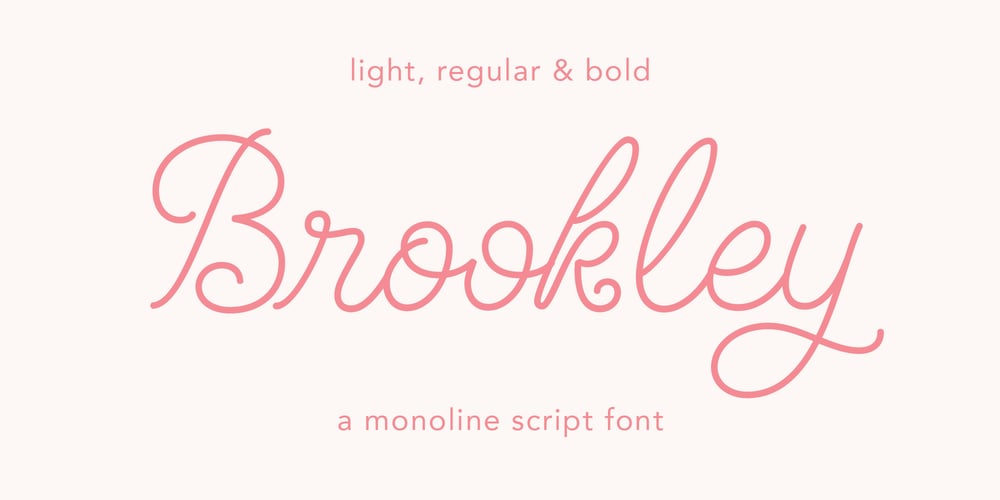
Brookley Font Family was designed by Danielle Edwards and published by Danielle Eneh. Brookley contains 3 styles and family package options. Brookley is a hand-crafted, monoline script typeface designed to add a beautiful, modern touch to your designs. Available in 3 weights: light, regular and bold. Brookley comes with 372 glyphs including uppercase, lowercase, numerals, punctuation and includes OpenType alternates and ligatures for easy customization. It’s perfect for branding projects, logos, wedding designs, social media posts, advertisements, product packaging, product designs, labels, photography, and invitations.